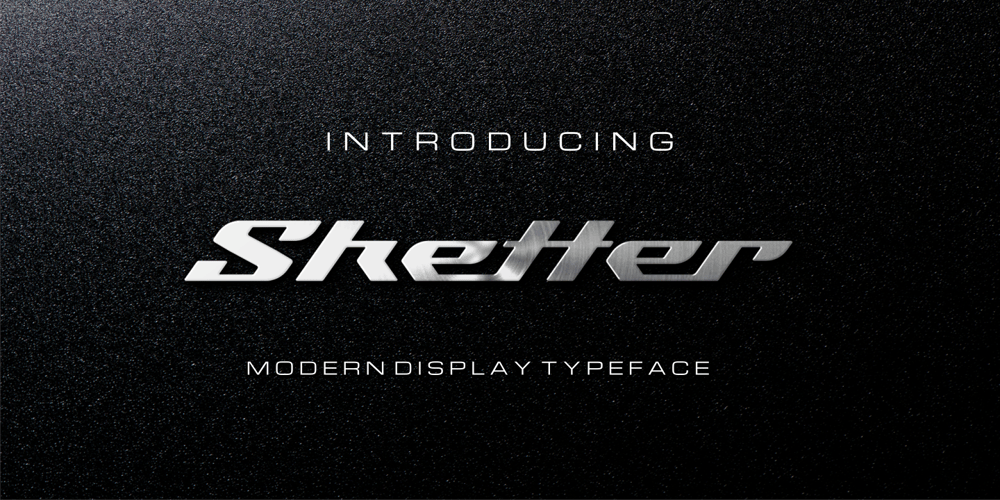
Sketter
Sketter font
Sketter Font Family was designed by Anthonie Van Hayu and published by ARToni. Sketter contains 1 styles and family package options. Sketter is modern display typeface inspired by aerodynamic designs.Fall in love with its incredibly distinct and timeless style and use it to create spectacular designs!. the name Sketter adopted from Skeeter, Skater and Scooter those darted and weaved.